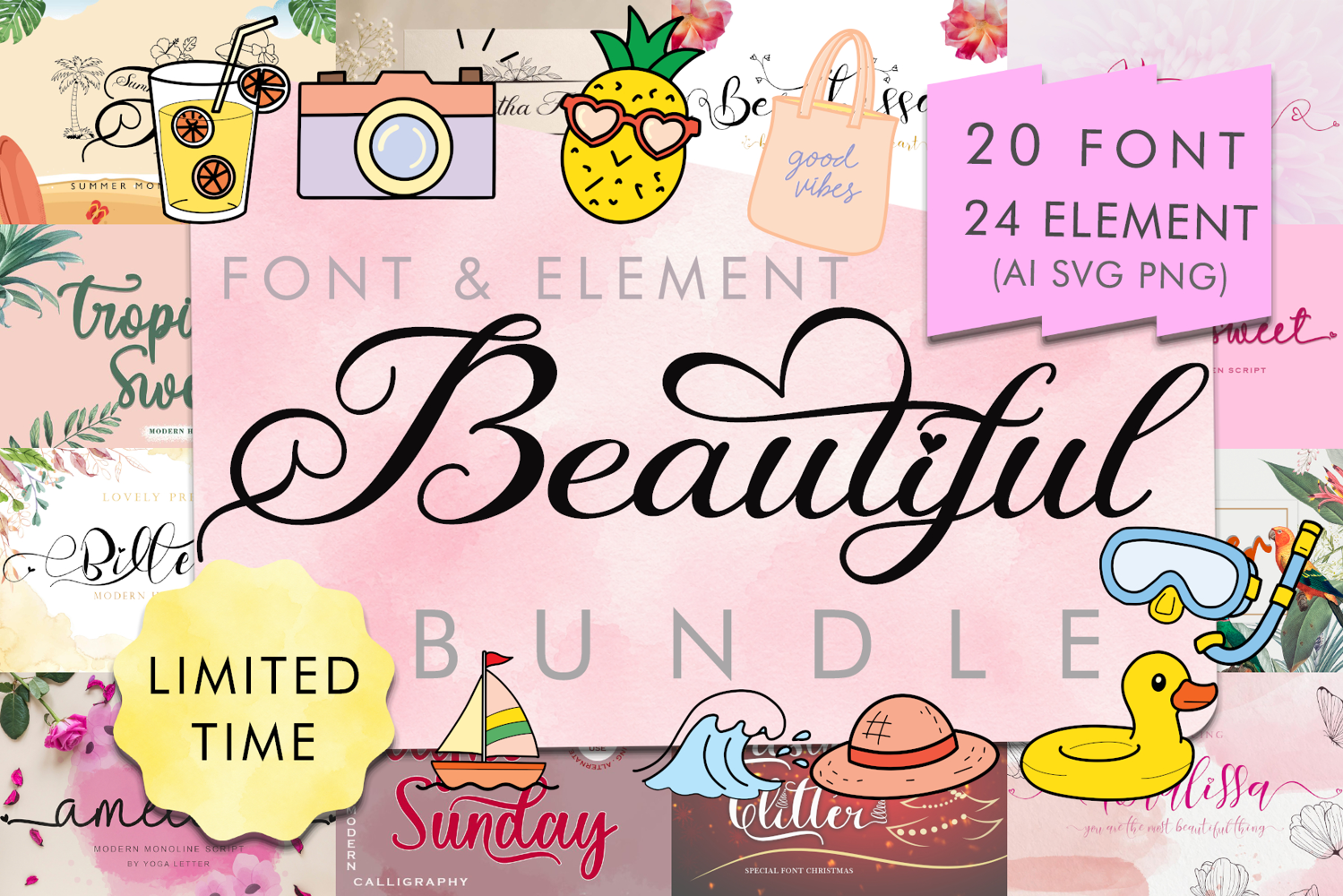
Beautiful Fonts & Summer Element Bundle
This creative collection bundle features 20 beautiful monogram fonts and 24 hand-drawn summer graphics in SVG, AI, and PNG formats. Perfect for:
1. Wedding Invitations
2. Branding
3. Logos
4. Product Packaging
5. Social Media Design
6. Greeting Cards
7. Craft Projects
8. Summer
Complete font collection for all your work:
1. Summer Meylina Monogram
2. Malietha Flower monogram
3. Mommy Emylina
4. Christmas Shadyna
5. Spring Style
6. Easter Shepherd
7. Christmas Glitter
8. Santa Story
9. Mella Sweet
10. Light Sunday
11. Tropical Sweet
12. Summer View
13. Amelline
14. High Moon
15. Monalissa
16. Dhefentha
17. Christmas Delight
18. Billetha
19. Berthessa
20. Astherlia